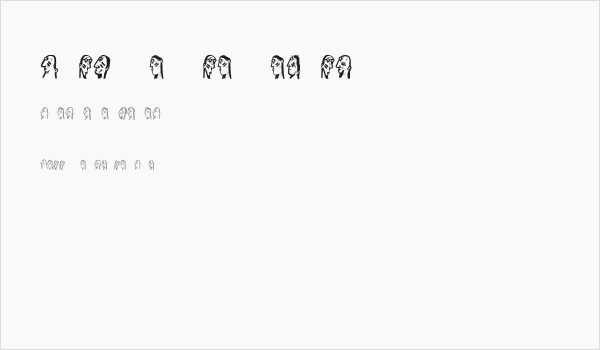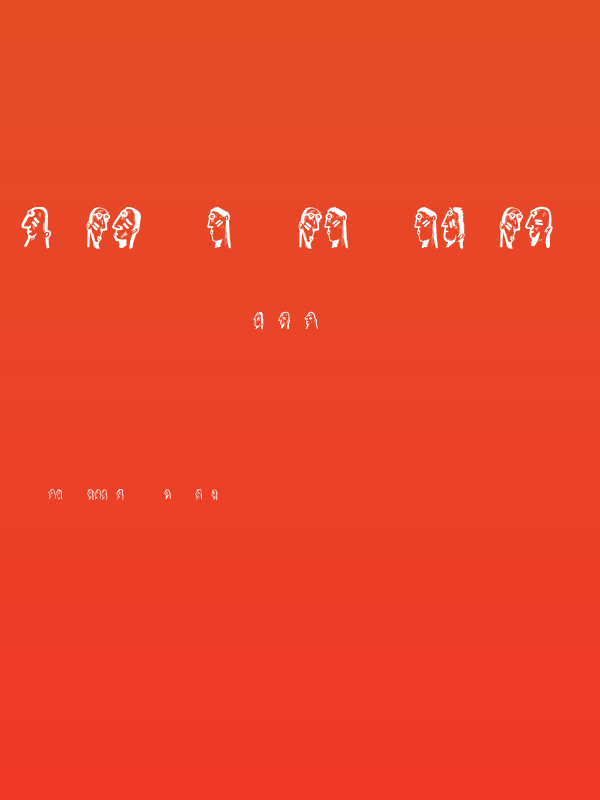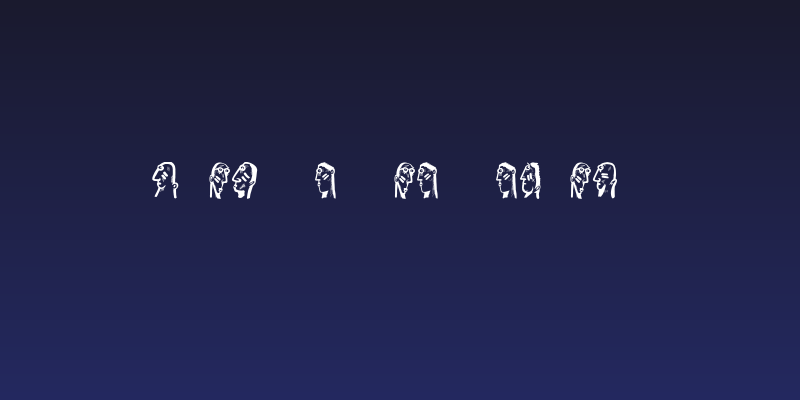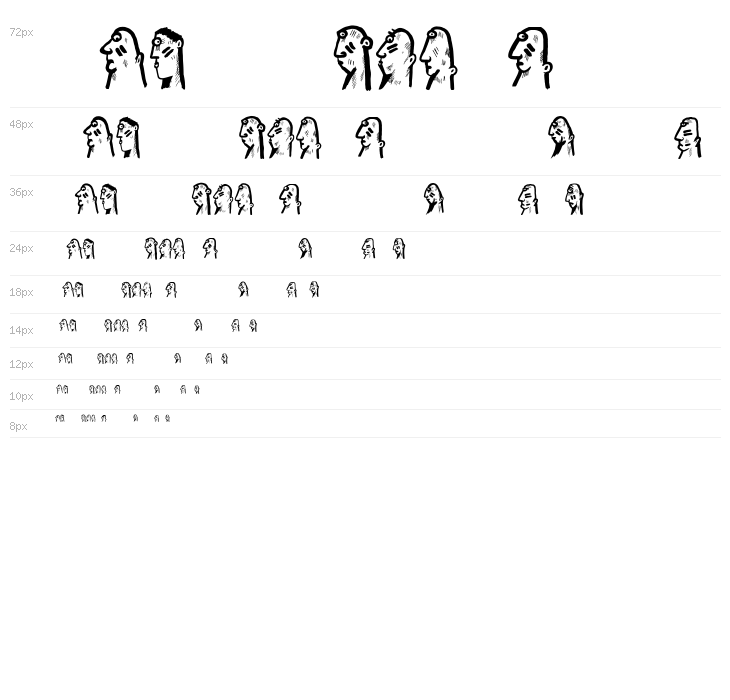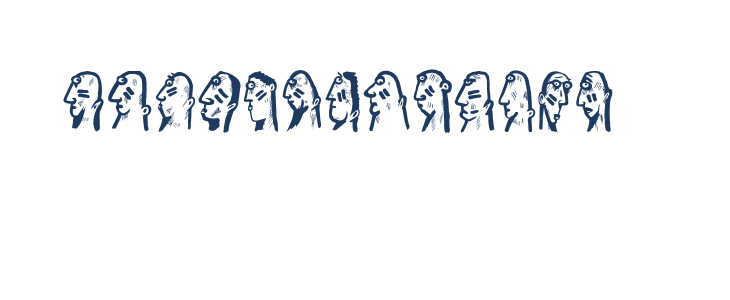
Bold People Regular Font
Bold People Regular Description
This unique and artistic font features stylized human faces in profile view, each character representing a different expression or personality. The design is bold and expressive, capturing a sense of individuality and creativity. The strokes are thick and varied, adding a hand-drawn, illustrative quality to the font. Each character is distinct, with intricate details that make it stand out, perfect for projects that require a touch of whimsy and artistic flair.
| Overall Style | Artistic, Whimsical |
| Use Case | Logos, Posters, Artistic Designs |
| Proposed Projects | Ideal for creative projects such as posters, album covers, or any design that benefits from a unique and artistic touch. |